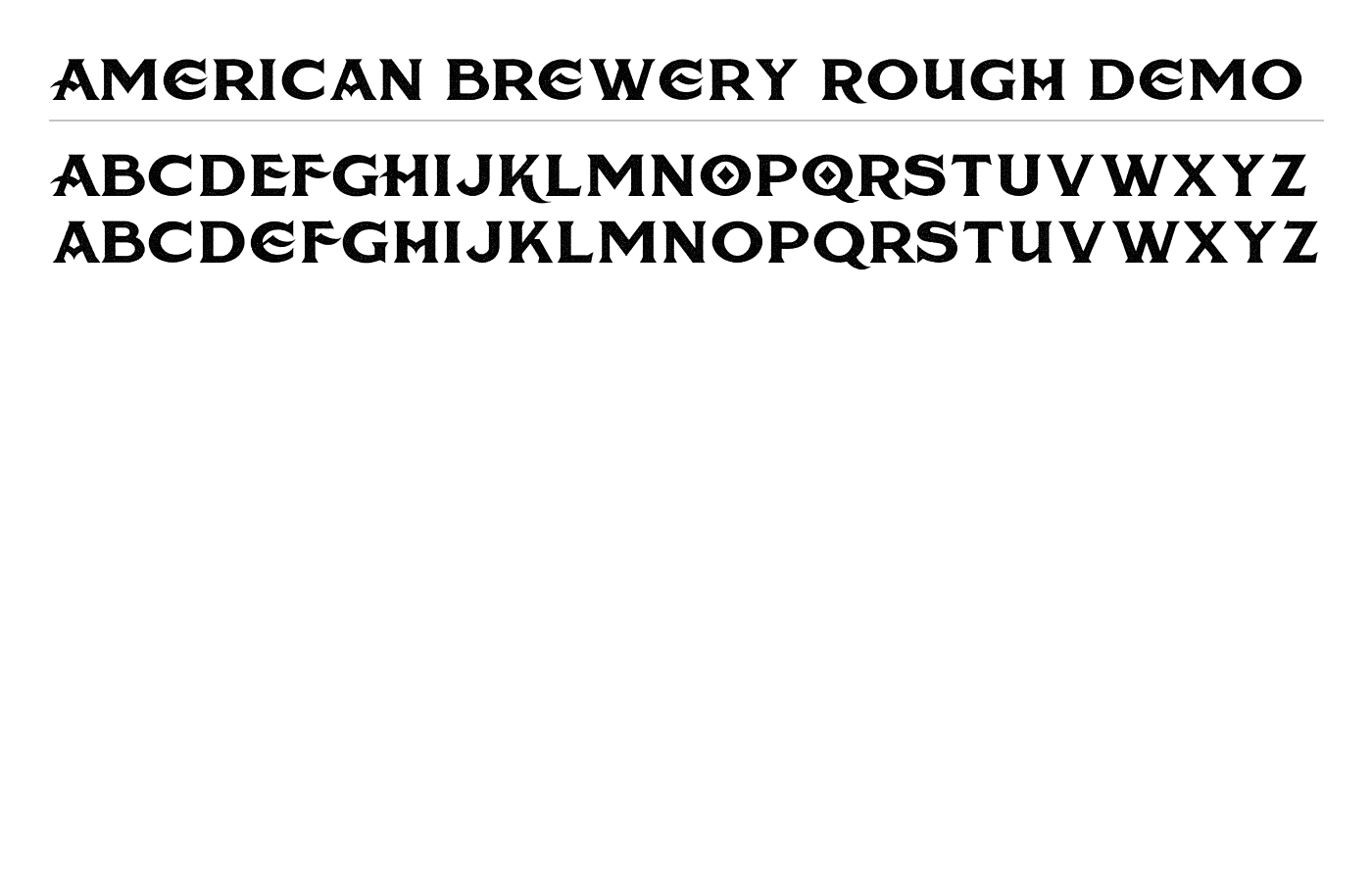
American Brewery Rough Demo is a bold, decorative serif typeface with a vintage, industrial feel. Its sharp, angular serifs combined with the rough texture and distinctive geometric details give it a strong, rustic character, perfect for branding that needs a historic or artisanal touch. This font works well in headlines, logos, and packaging where a bold, handcrafted statement is desired.
American Brewery Rough Demo Font
About American Brewery Rough Demo Font
| Font family | American Brewery Rough Demo Font |
| Designer | Gilang Purnama Jaya |